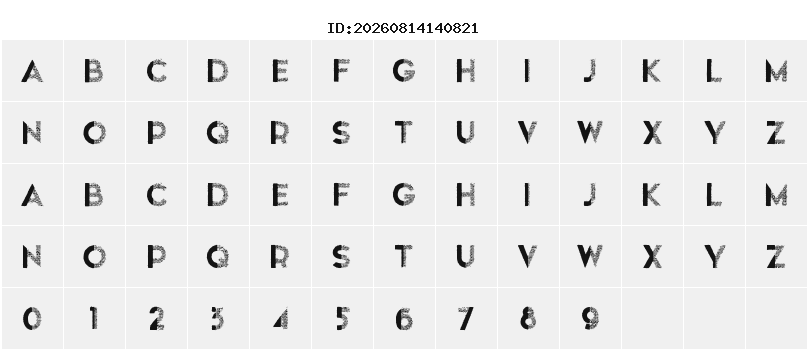
Streets of Fire Preview
• Font Name: Streets of Fire
• Font ID: Streets of Fire:Version 1.00
• Full Font Name: Streets of Fire
• Version: Version 1.00 March 15, 2015, initial release
• PostScript Name: StreetsofFire
• Designer: Woodcutter Manero
About Streets of Fire.ttf
Streets of Fire.ttf is a modern, elegant sans-serif font designed for ultimate readability and visual harmony. Perfect for branding, headlines, web design, and print materials.